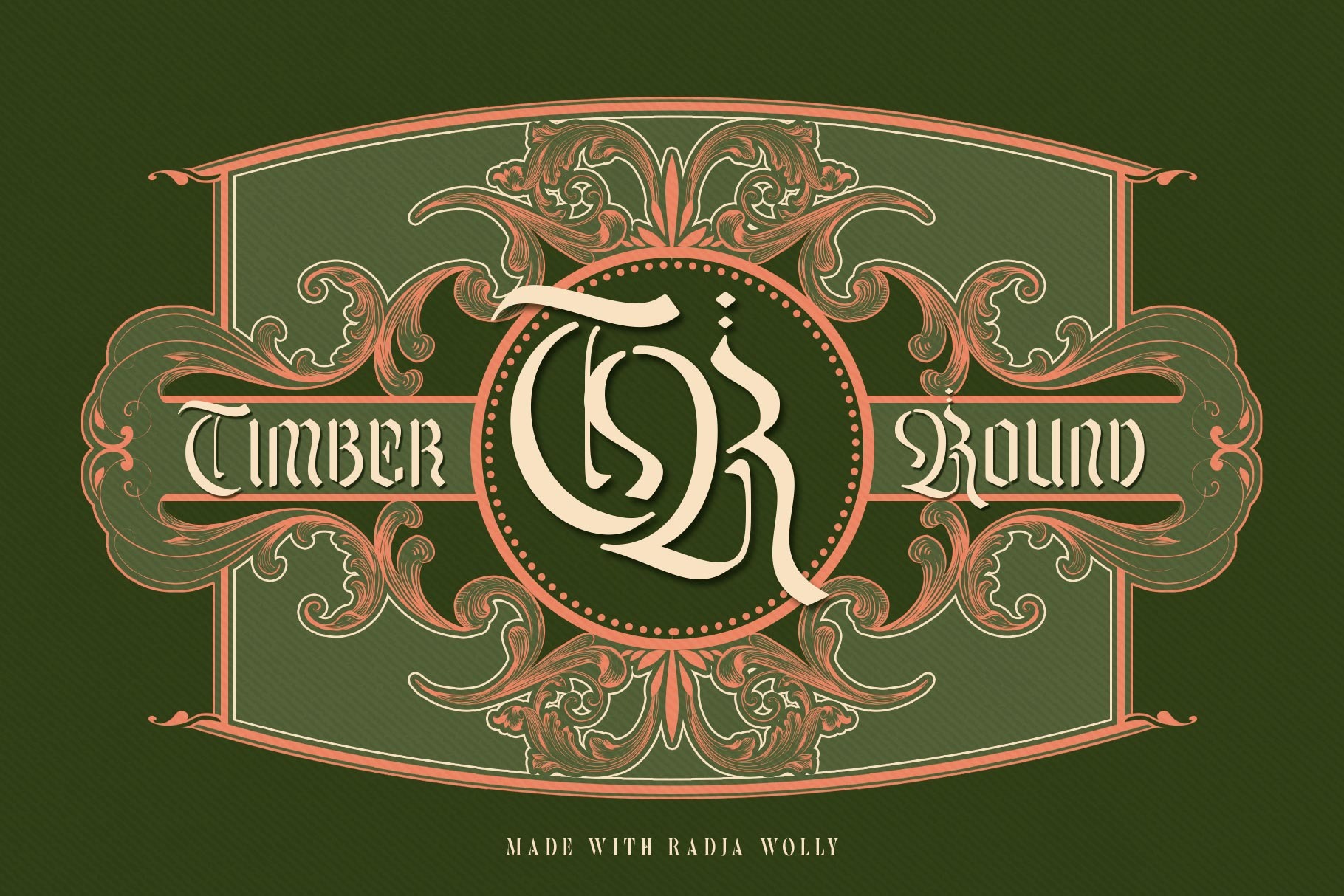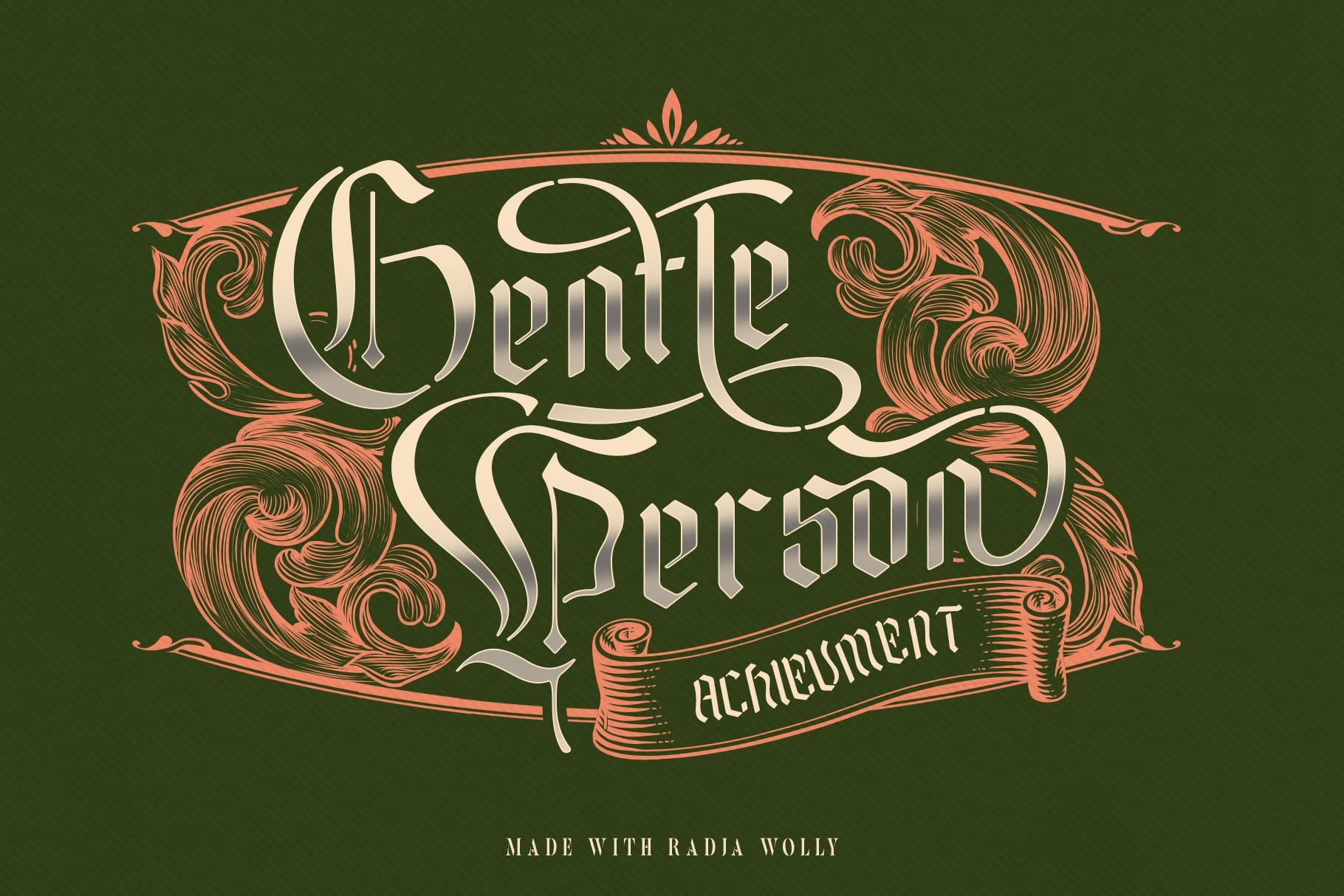
Radja Wolly Font
Radja Wolly Display Font
This is a blackletter font in the retro style. Elegant and rounded, it adds a bold touch to your projects and will inspire you to create something unique and modern. Supported by alternative options such as swash, ligature and alternative characters, making The Radja Wolly Typeface very easy to create designs with strong or vintage themes. In addition, The Radja Wolly Typeface font is also supported with multilingual characters that can be used in several international languages.
The Radja Wolly Typeface is very suitable for use in making music album cover designs, tattoo logos, wishkey labels, packaging pomades and so on which are made with dark and strong concepts.